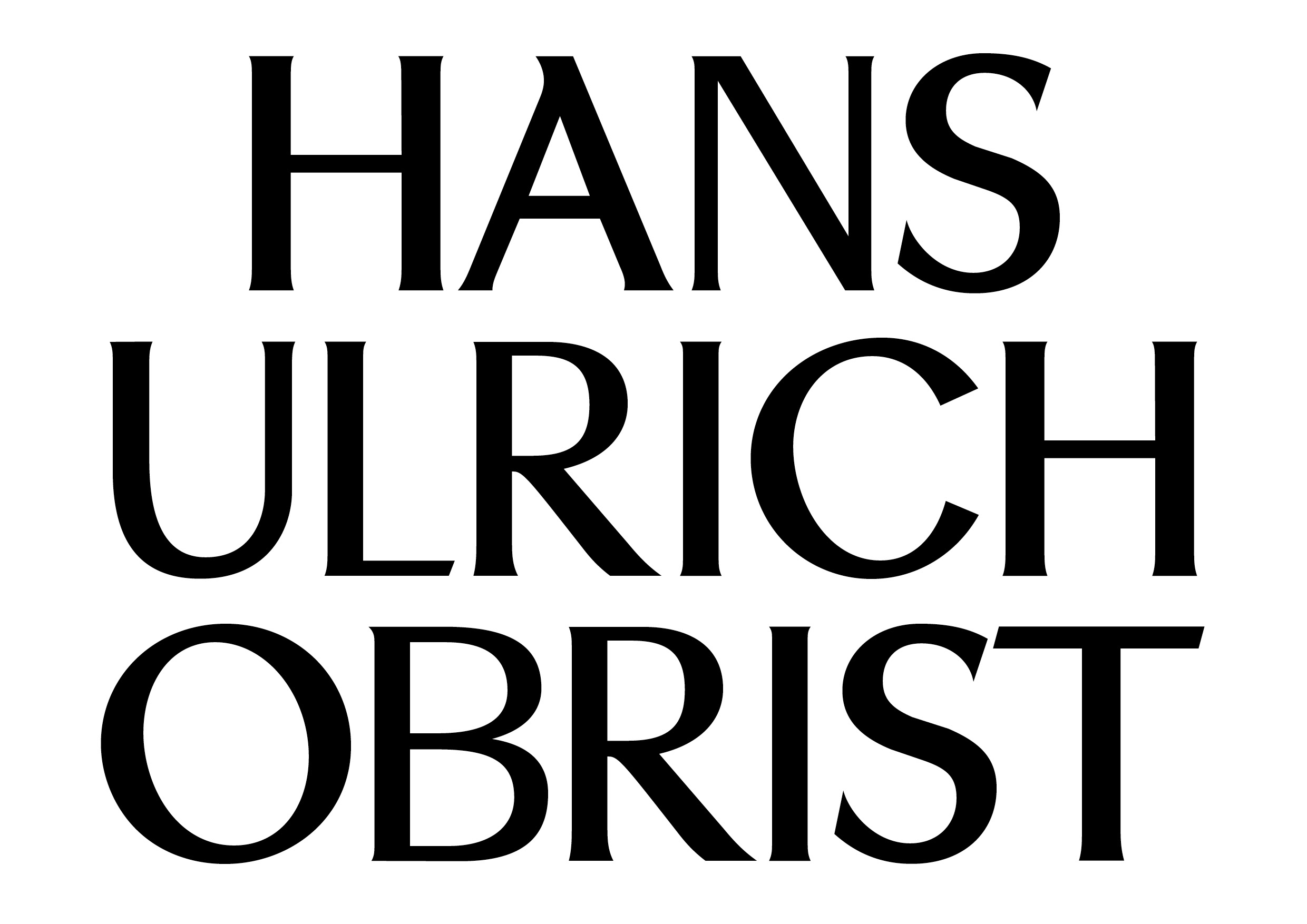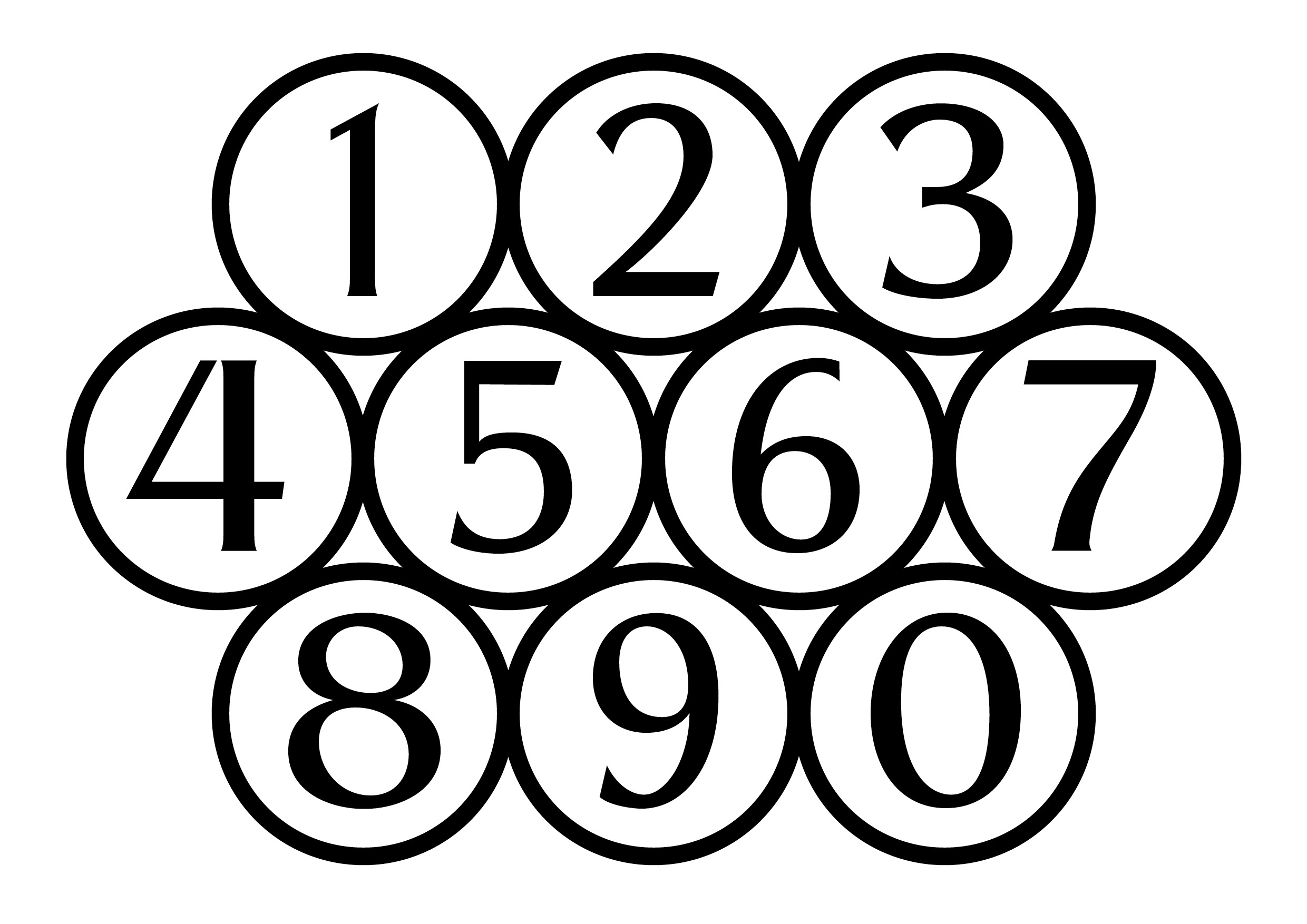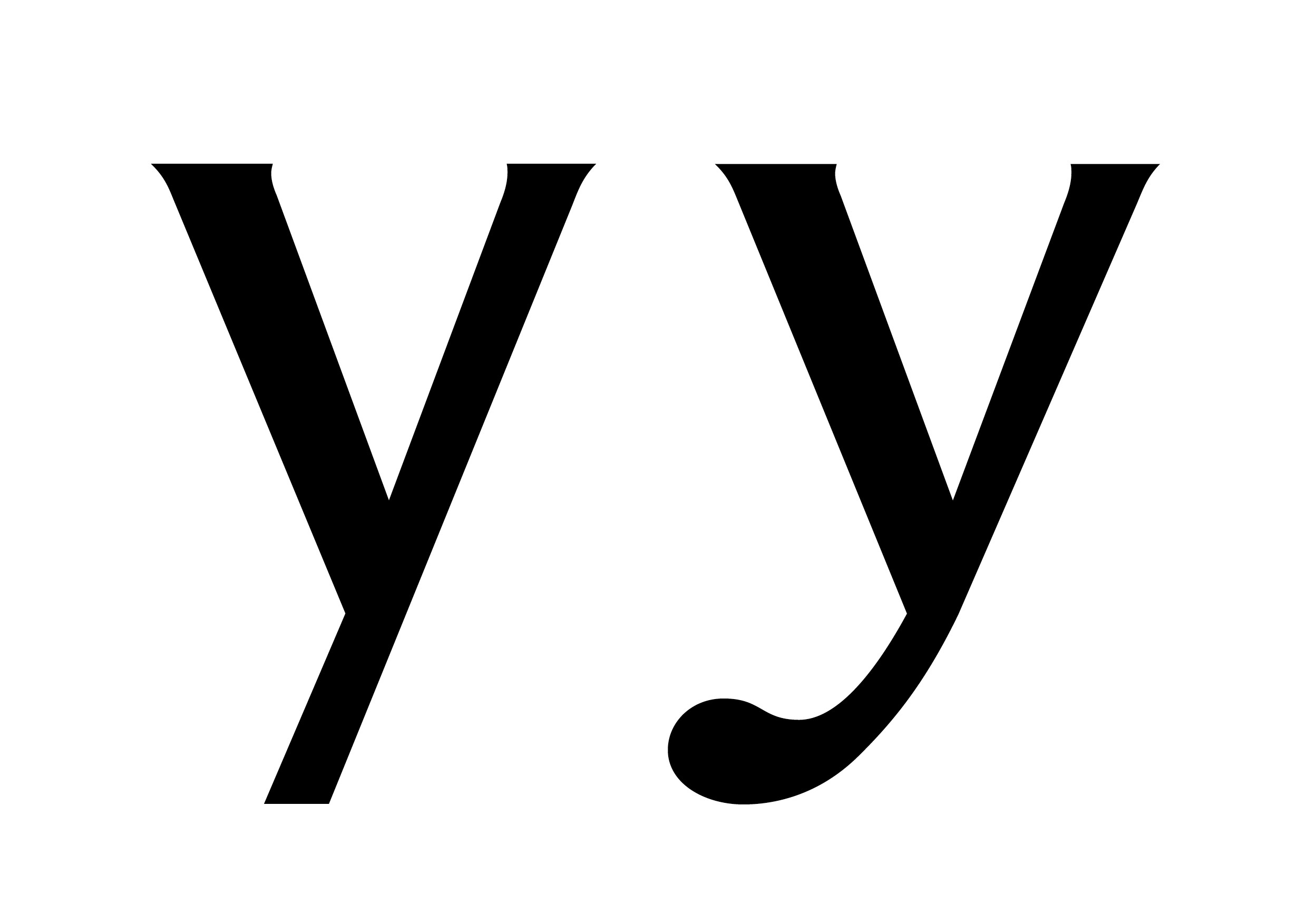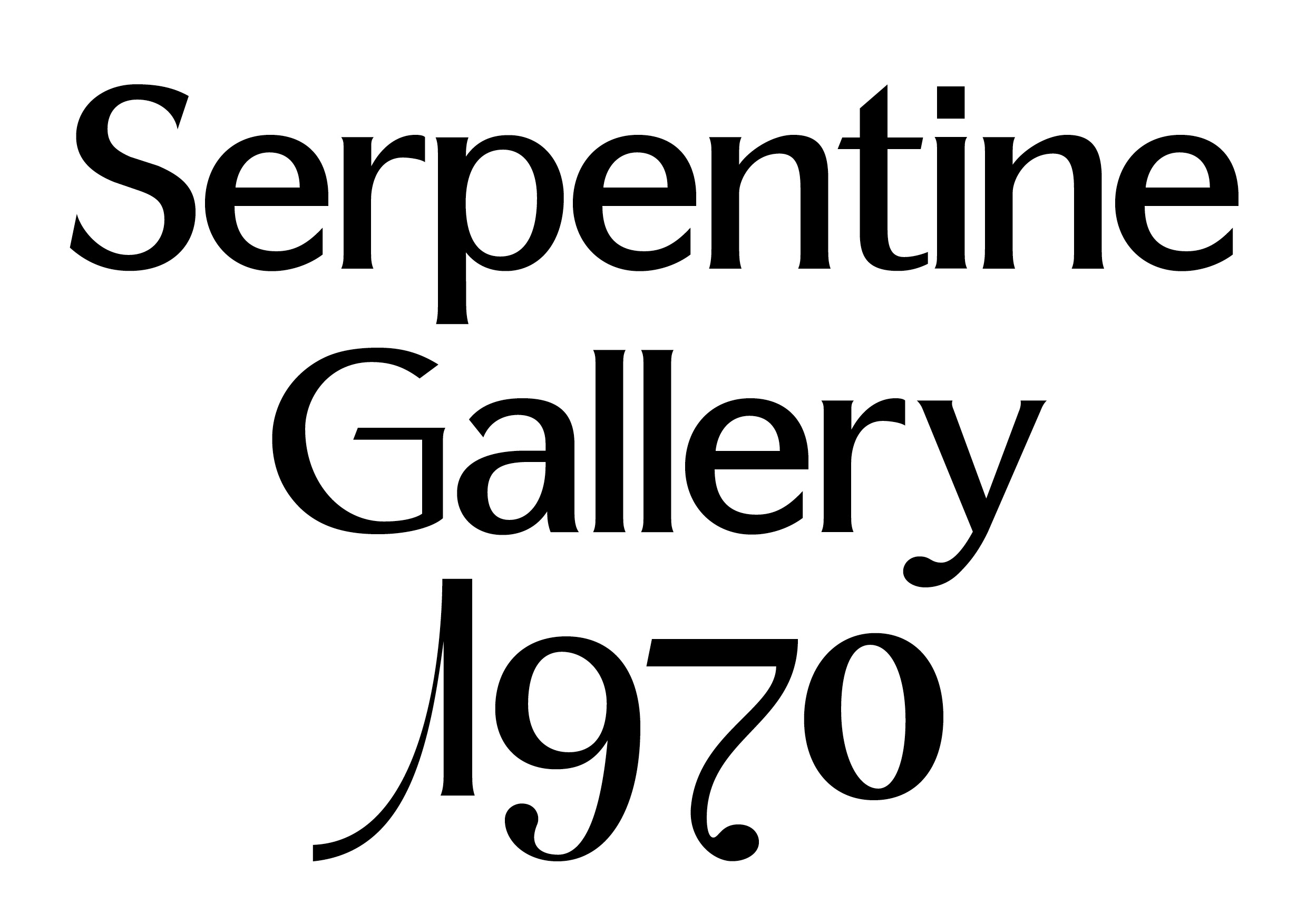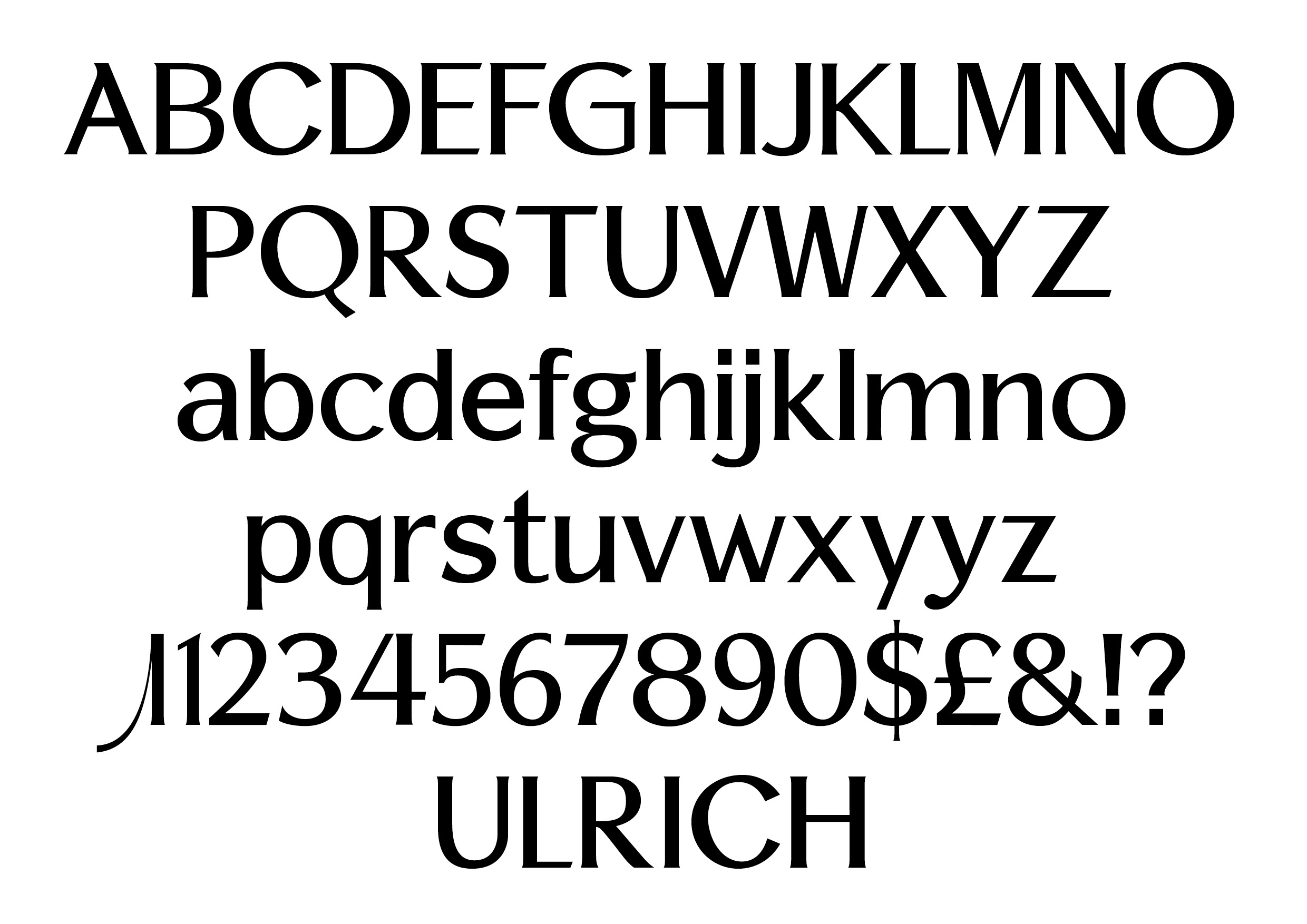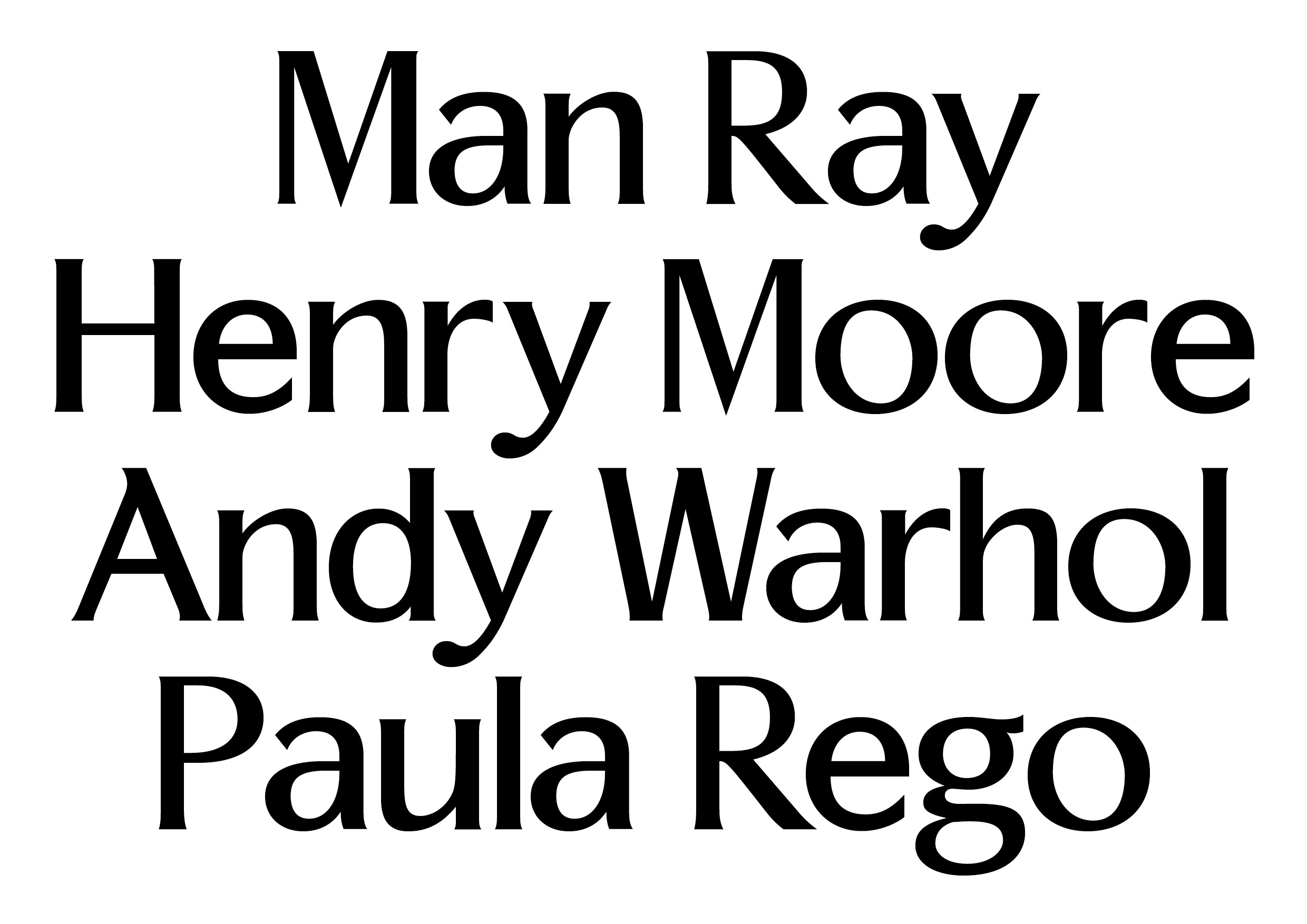
Ulrich Sans
Ulrich Sans is a glyphic typeface shaped by the visionary perspective of curator Hans Ulrich Obrist, whose work expands the possibilities of how art is experienced. In that same spirit, Ulrich Sans stretches the boundaries of typographic design, merging classical glyphic forms with the essence of innovation and artistic exploration. Its distinctive blend of serif and sans-serif elements creates a look that is both refined and unconventional. A thoughtful set of alternates encourages expressive headlines and compositions that demand attention.
By uniting rational structure with human warmth, Ulrich Sans reflects Obrist’s belief in the transformative potential of artistic expression. Striking a balance between approachability and directness, it becomes an ideal vehicle for conveying heartfelt and authentic messages that deeply resonate with audiences.
Display, Sans Serif
trulytype